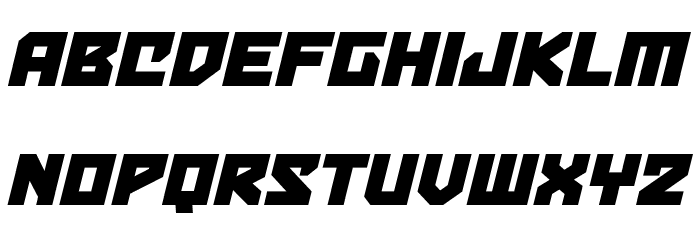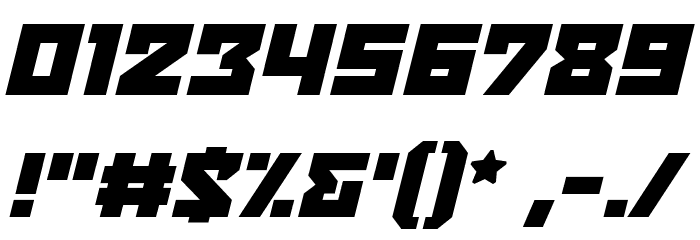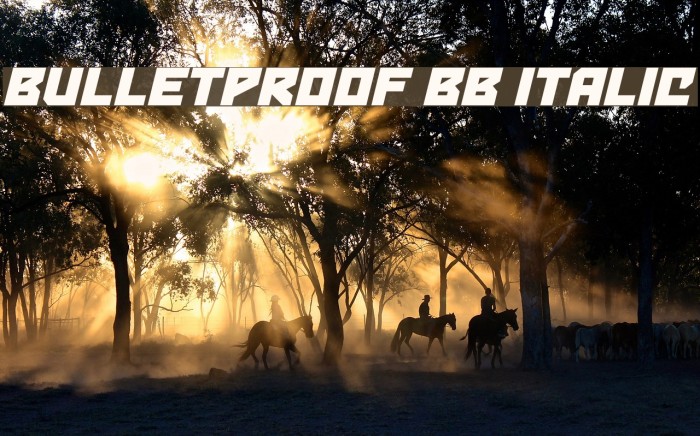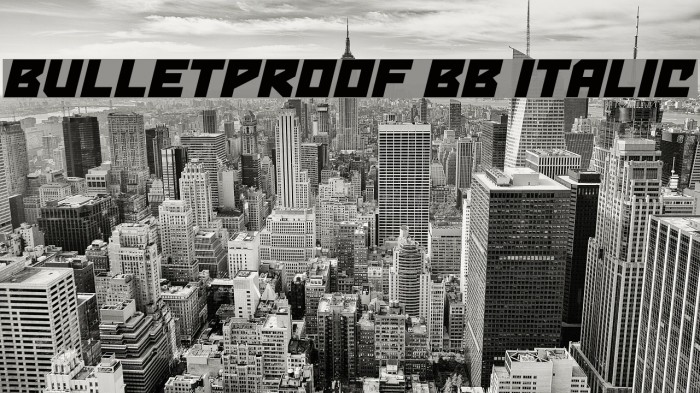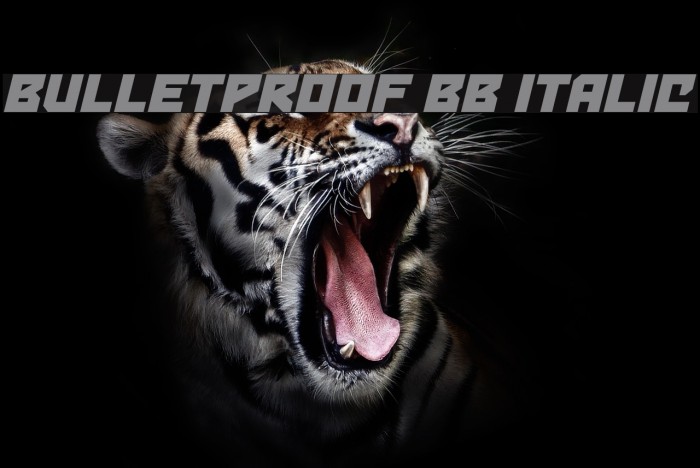
Bulletproof BB Italic Font
This font features a bold, angular design with a strong geometric influence. The characters are sharply defined with a distinct slant, giving it an italicized appearance. The strokes are thick and consistent, providing a robust and impactful look. This style is reminiscent of futuristic or tech-inspired themes, making it suitable for projects that require a modern and edgy aesthetic. The uppercase and lowercase letters maintain a uniform style, while the numbers and special characters complement the overall design with their bold and dynamic shapes.
A bold, angular, and italicized font with a futuristic and geometric style.
- Proposed Projects: Ideal for tech branding, video game titles, sports team logos, and dynamic posters.
- Use Case: Logos, Headlines